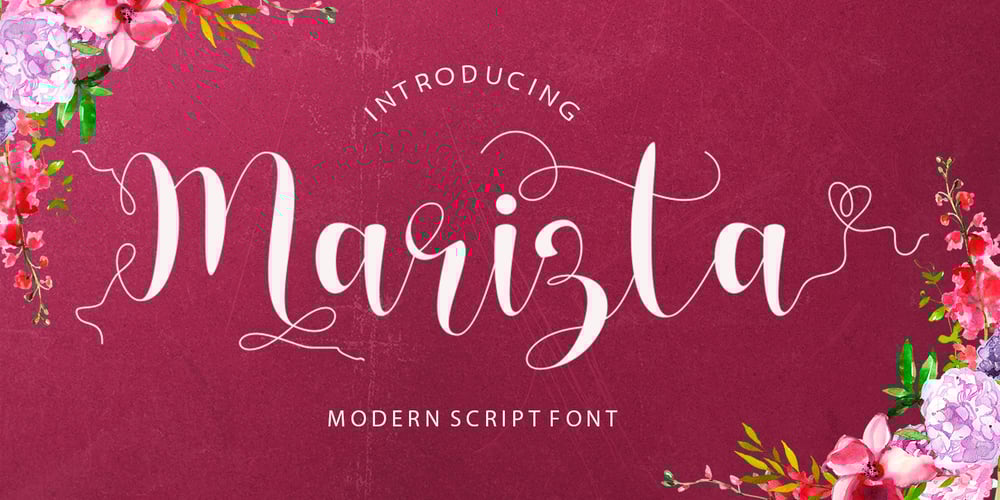
Marizta Script Font Family was designed by Teuku Saifullah and published by Shape Studio. Marizta Script contains 1 styles and family package options. Marizta Script is a new modern script calligraphy font with an irregular baseline. Trendy and feminine style. Marizta Script looks lovely on wedding invitations, thank you cards, quotes, greeting cards, logos, business cards and more. Perfect for using in ink or watercolour. Including initial and terminal letters, alternates, ligatures and multi-lingual support.To enable the OpenType Stylistic alternates, you need a program that supports OpenType features such as Adobe Illustrator CS, Adobe Indesign & CorelDraw X6-X7, Microsoft Word 2010 or later versions. There are additional ways to access alternates/swashes, using Character Map (Windows), Nexus Font (Windows), Font Book (Mac) or a software program such as PopChar (for Windows and Mac).